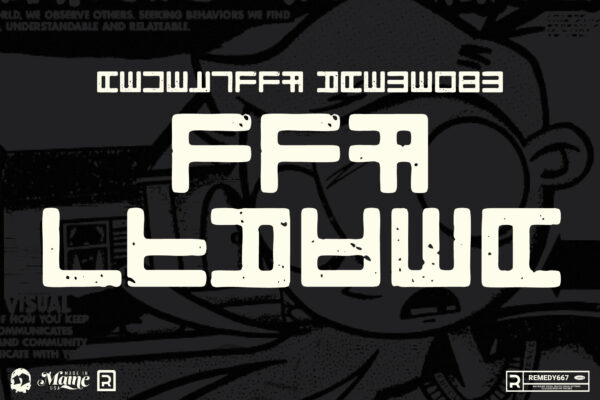
Are you ready to unleash your inner creature of the night? Introducing Thirst for Evil, a rust stained vampire typeface that will transport your designs into the shadows of darkness. With its twisted and eerie letterforms, this font is perfect for adding an air of spine-chilling sophistication to any project.
Thirst for Evil brings a mesmerizing blend of horror and elegance to your typography. Each character drips with the essence of macabre beauty, as if they were forged in the depths of a haunted castle. The rust stains that adorn each letter create an aura of decayed elegance, evoking images of ancient manuscripts written in blood.
Whether you’re designing darkly captivating posters or hauntingly beautiful invitations, Thirst for Evil will instantly captivate your audience’s attention. Its unique and sinister style sets it apart from ordinary fonts, making every word feel like a whispered secret from the underworld. Brace yourself for an unearthly experience as Thirst for Evil unleashes its chilling power upon your designs – but beware: once you embrace this font’s demonic allure, there’s no turning back!